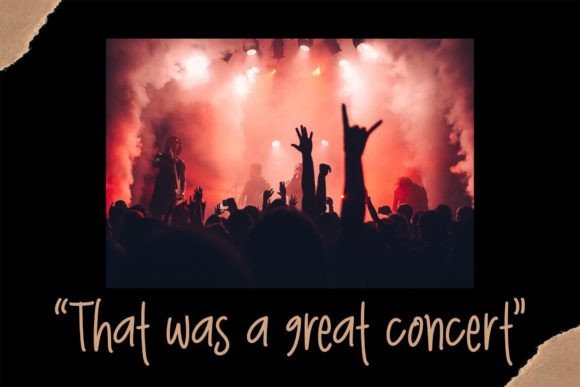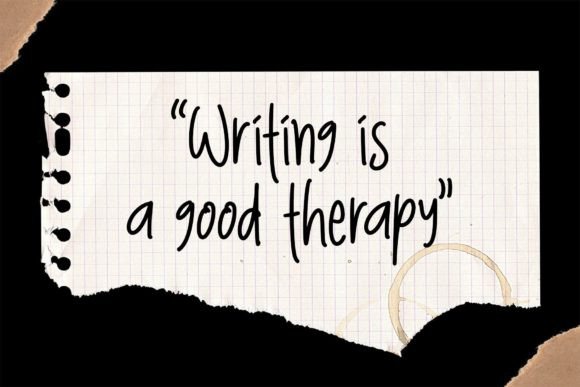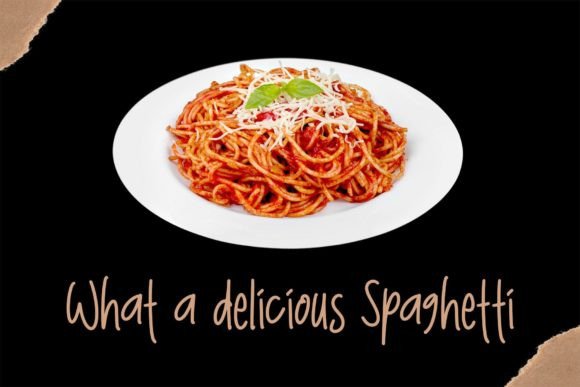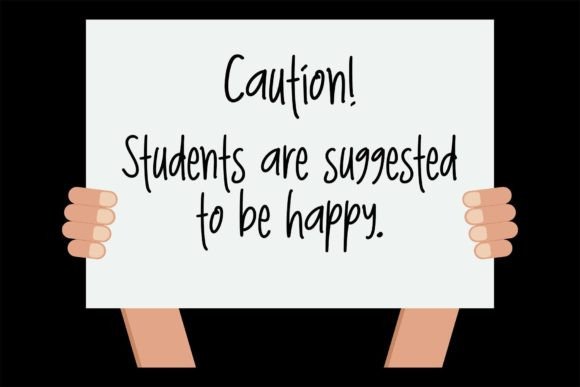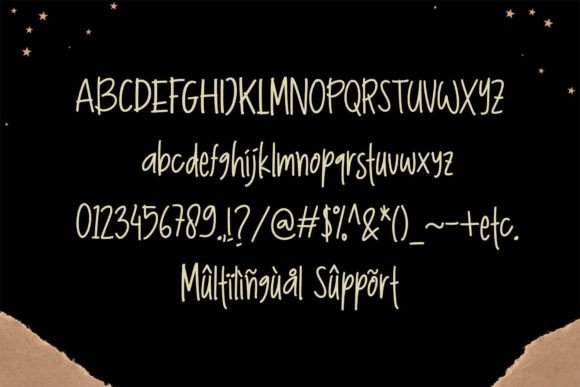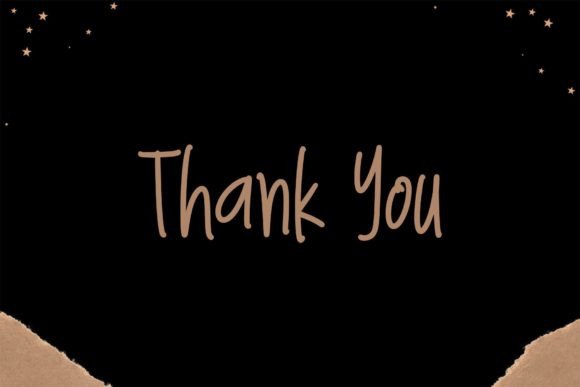
Introduction to Great Night Font
Remember that moment when you’re working on a creative project, and you just can’t seem to find the right font to bring it all together? The words on the page feel dull, and the entire design just doesn’t seem to pop. But what if you could add a touch of magic to your design with just one font?
Enter the Great Night Font, a cool, casual, and friendly lettered display font that’s sure to elevate any creation. With its natural feel and high-quality design, this handmade font is a valuable addition to any designer’s library. Whether you’re working on a design project or just need a design resource for a personal creative endeavor, the Great Night Font is the perfect solution.
Key Features of Great Night Font
- High-quality font design, perfect for creative projects and design resources.
- Includes a range of glyphs and characters, making it suitable for a variety of creative applications.
Honest Review: Great Night Font
As a designer, I’m always on the lookout for high-quality design resources that can elevate my creative projects. Recently, I had the opportunity to try out the Great Night Font, and I must say, it’s been a game-changer.
- ✨ The font is incredibly versatile and can be used for a wide range of creative projects, from brochures to websites.
Overall, I’m really impressed with the Great Night Font. It’s a high-quality design resource that’s perfect for designers looking for a unique and versatile font for their creative projects.
Tips for Getting the Most Out of Great Night Font
To get the most out of Great Night Font, try combining it with other design elements, such as bold colors or geometric shapes. You can also experiment with different font sizes and styles to create a unique visual effect.
The Great Night Font is perfect for designing:
1. Branding materials, such as logos and business cards.
2. Social media graphics and ads.
3. Digital presentations and reports.